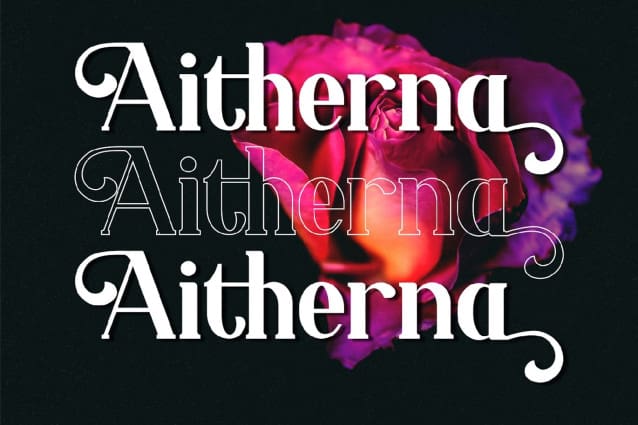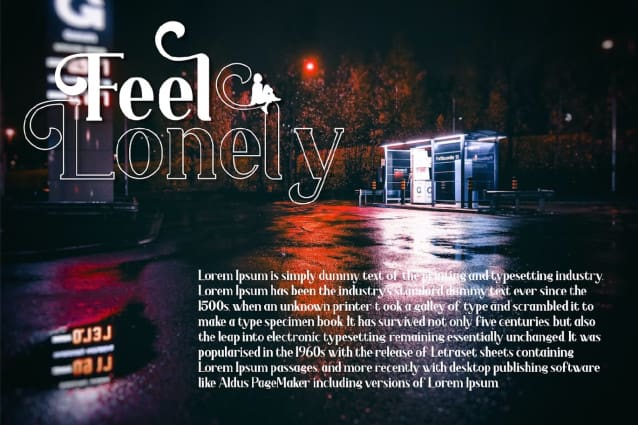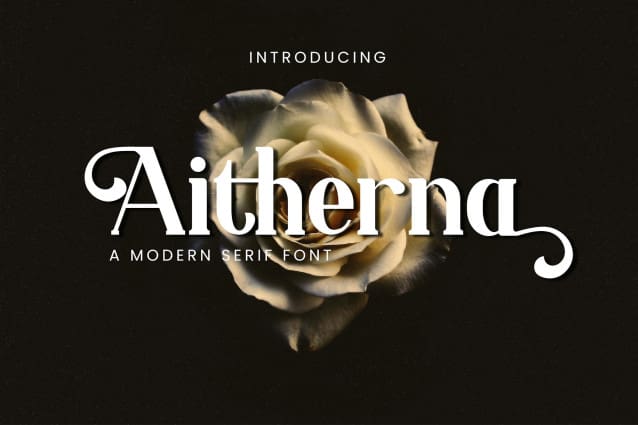
Aitherna Font
Aitherna Font – Modern Serif Font, from MAH Studios, is a premium Serif font, perfect for any project requiring a distinctive, high-end touch.